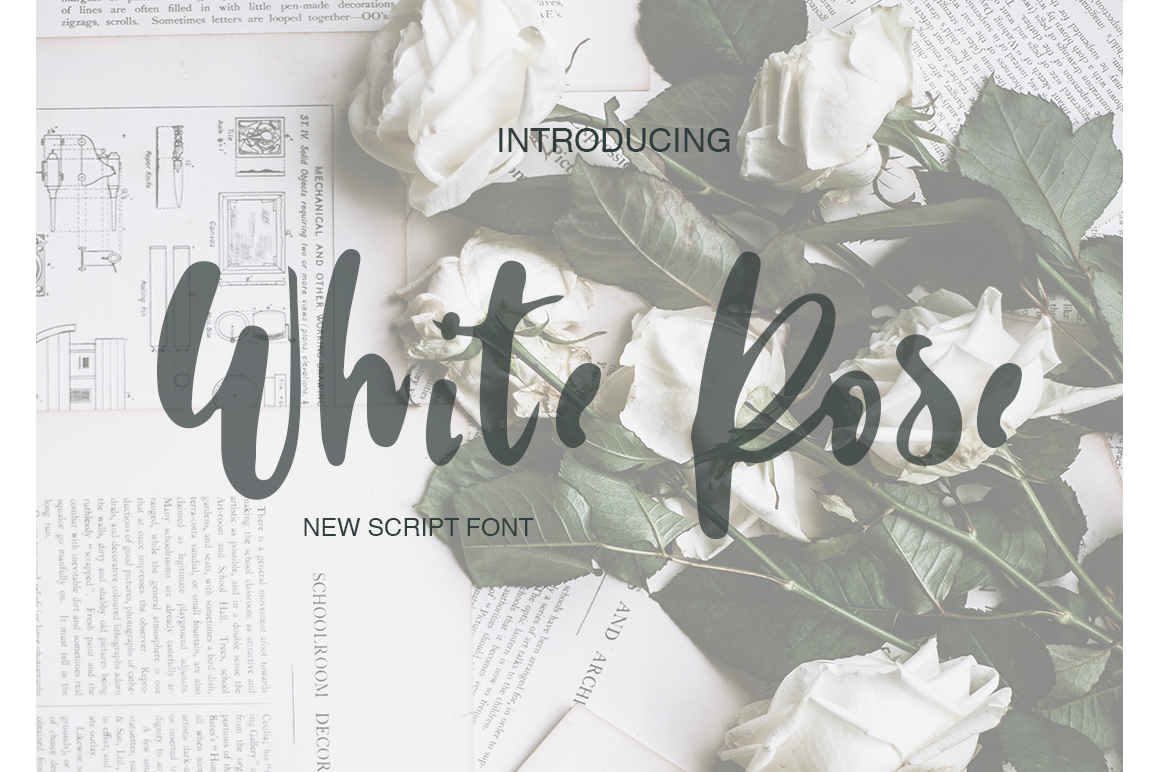
White Rose
The WHITE ROSE - a new fresh handmade calligraphy font.
Very suitable for greeting cards, branding materials, business cards, quotes, posters, and more!This font are perfect for wedding postcard. Or you can create perfect and unique design of your logo, blog, stationery, marketing, magazines and more :)